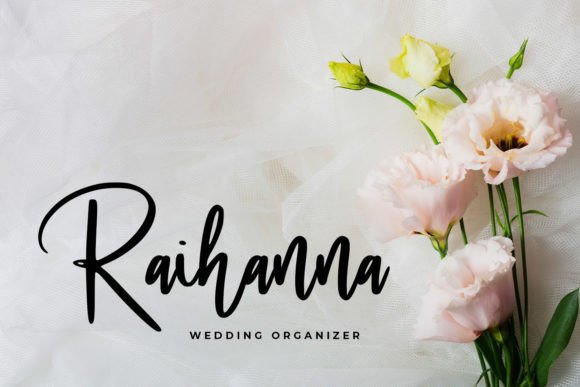
Minimalism Font: The Elegant and Dainty Handwritten Font for Crafty Ideas
Minimalism Font is an exquisite and delicate handwritten font that has gained popularity among designers and crafty enthusiasts. This elegant font features sweet and delicate swashes, making it perfect for a wide range of creative projects. In this article, we’ll explore the world of Minimalism Font, its characteristics, and how it can elevate your designs.
What is Minimalism Font?
Minimalism Font is an original handwritten font that exudes elegance and delicacy. Its sweet and delicate swashes add a touch of sophistication to any design, making it ideal for crafty ideas such as letterheads, titles, and stationery. This font is perfect for designers who want to create a unique and visually appealing design that stands out from the crowd.
Characteristics of Minimalism Font
Minimalism Font has several distinct characteristics that make it a popular choice among designers. Some of its key features include:
- Elegant and delicate swashes: The font features beautiful swashes that add a touch of elegance to any design.
- Handwritten style: The font has a handwritten style that gives it a personal and unique touch.
- Sweet and dainty: The font is characterized by its sweet and dainty look, making it perfect for feminine and elegant designs.
Uses of Minimalism Font
Minimalism Font is a versatile font that can be used for a wide range of creative projects. Some of the most popular uses of this font include:
- Letterheads: The font is perfect for creating elegant and professional letterheads.
- Titles: The font’s elegant swashes make it ideal for creating eye-catching titles.
- Stationery: The font is perfect for creating beautiful and elegant stationery.
- Branding: The font can be used to create a unique and memorable brand identity.
Benefits of Using Minimalism Font
Using Minimalism Font can have several benefits for designers and crafty enthusiasts. Some of the most significant advantages of using this font include:
- Unique and elegant look: The font’s elegant swashes and handwritten style give it a unique and elegant look.
- Versatility: The font can be used for a wide range of creative projects.
Tips for Using Minimalism Font
Here are some tips for using Minimalism Font:
- Use the font for elegant designs: The font is perfect for creating elegant and sophisticated designs.
- Experiment with different colors: Experiment with different colors to find the perfect combination for your design.
- Use the font for titles and headings: The font is perfect for titles and headings.
Minimalism Font is an elegant and dainty handwritten font that features sweet and delicate swashes. Its unique and elegant look makes it perfect for a wide range of creative projects, from letterheads and titles to stationery. With its versatility, ease of use, and elegant design, Minimalism Font is a must-have font for designers and crafty enthusiasts.
- What is Minimalism Font?: Minimalism Font is an elegant and dainty handwritten font that features sweet and delicate swashes.
- What are the uses of Minimalism Font?: The font can be used for letterheads, titles, stationery, and branding.